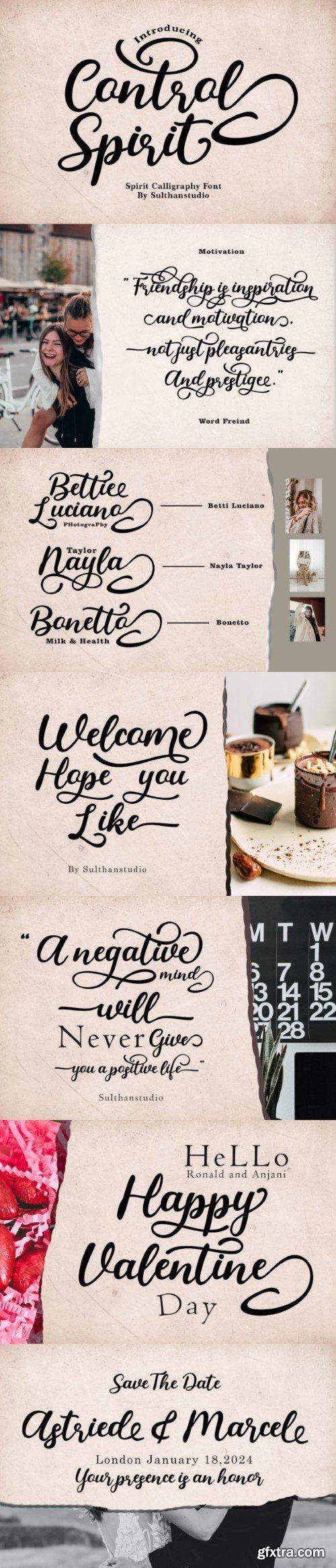
Control Spirit is a vintage-style script font that exudes a cool and nostalgic vibe. With its intricate, handcrafted letterforms and flowing brush strokes, it captures the essence of retro design. Perfect for adding a touch of old-school charm to logos, packaging, and invitations, Control Spirit brings a sense of style and character to any project.